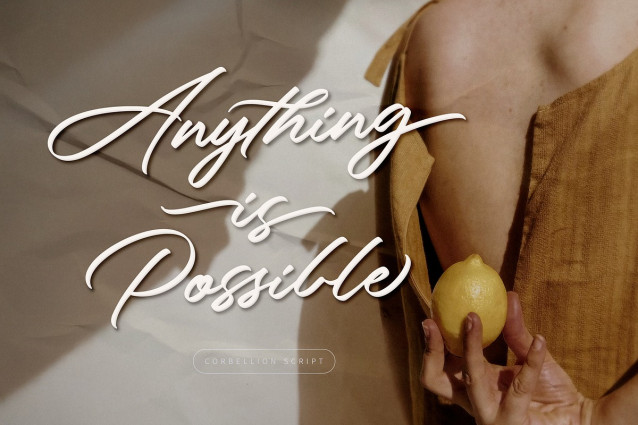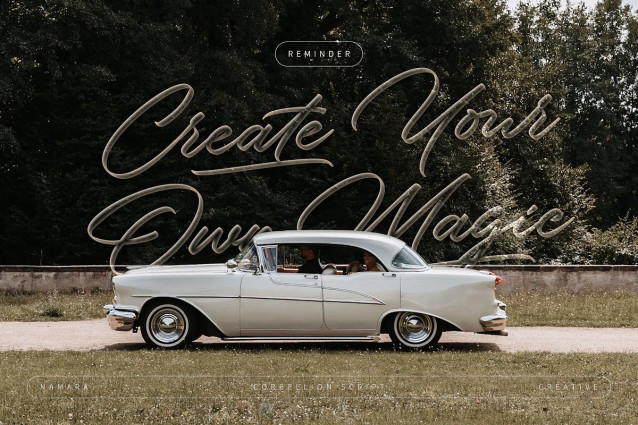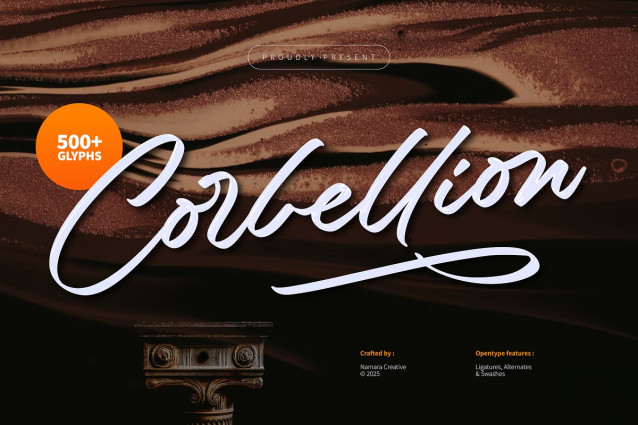
Corbellion Script Font
Corbellion Script Font a bold and flowing signature script font that blends modern calligraphy with timeless elegance. Designed with over 500 meticulously crafted glyphs, Corbellion Script offers a versatile typographic experience with extensive OpenType features, including ligatures, alternates, and swashes—perfect for designers who crave expressive, hand-lettered aesthetics.
This font is ideal for branding, wedding invitations, fashion logos, product packaging, social media quotes, and more. Whether you’re creating a luxurious logo, a stylish tote bag, or an inspiring quote, Corbellion Script gives your text a touch of sophistication and flair.